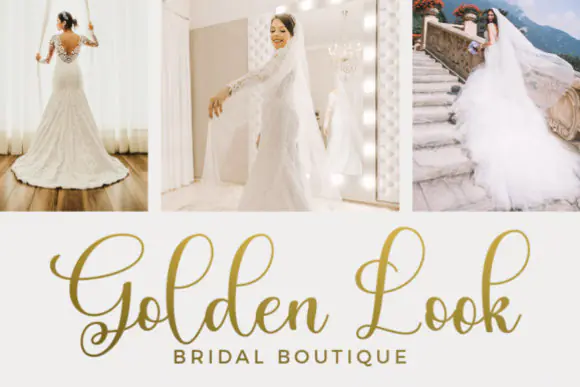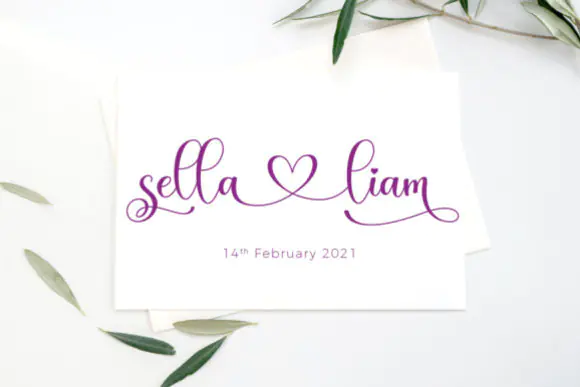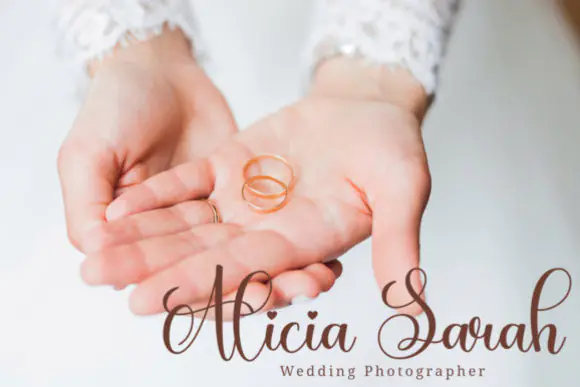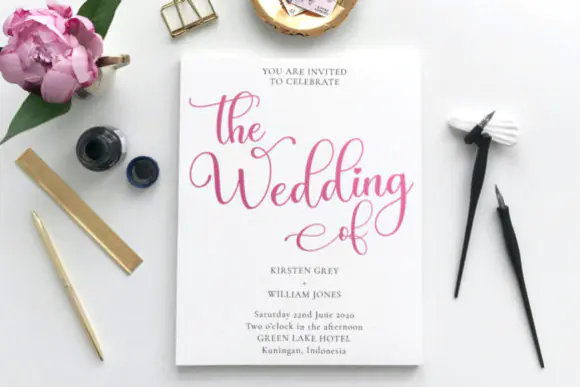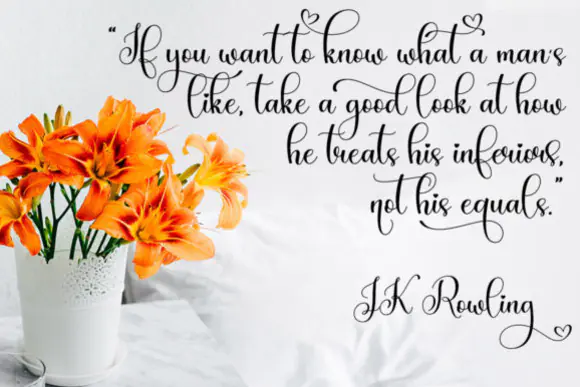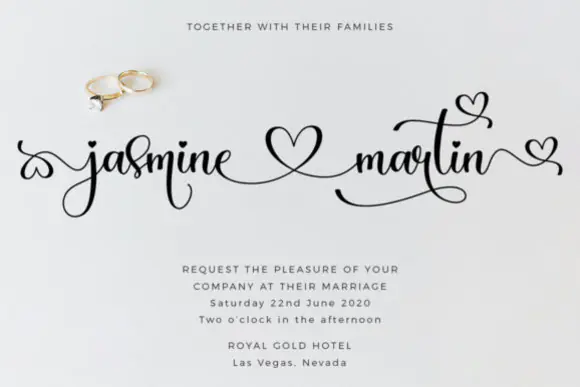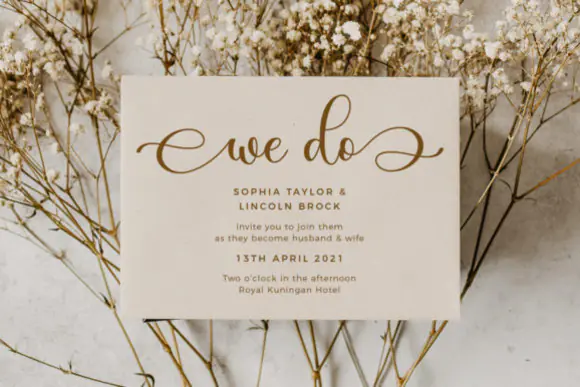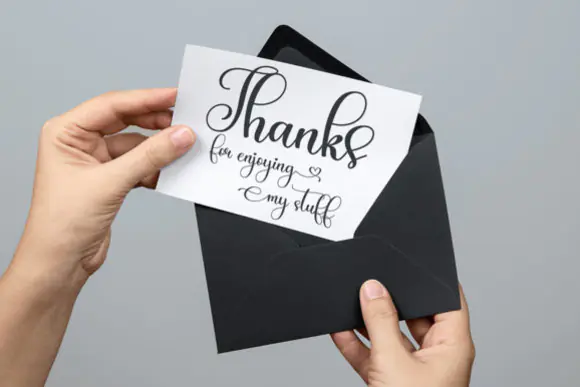
Maddison Romantic Calligraphy Font – Sweet Elegant Script Typeface with Swashes & Glyphs for Wedding Invitations, Logos, Branding, Greeting Cards, Quotes, Packaging & Feminine Designs
Add a romantic, graceful, and stylish calligraphy touch to your creative projects with Maddison Font, a sweet script typeface designed with elegant characters that beautifully dance along the baseline. Its flowing calligraphy style gives your text a soft and expressive look, making it perfect for designs that need a romantic, feminine, and high-end handwritten feel.
This font is ideal for wedding invitations, save-the-date cards, greeting cards, love quotes, logos, branding, boutique designs, product packaging, labels, stickers, social media graphics, printable wall art, fashion designs, and elegant promotional materials. Its casual yet refined appearance makes it flexible enough for both professional branding and personal creative projects.
Maddison Font is also PUA encoded, allowing easy access to glyphs and swashes so you can create more decorative, customized, and premium-looking typography designs. Whether you are designing wedding stationery, romantic branding, luxury packaging, or beautiful quote artwork, this font helps your project feel polished, charming, and memorable.
Wedding invitations, save-the-date cards, bridal stationery, greeting cards, romantic quotes, feminine logos, boutique branding, product packaging, labels, stickers, social media posts, printable wall art, fashion designs, signature-style text, and elegant marketing materials.
Key Features
• Romantic and sweet calligraphy typeface
• Elegant characters with dancing baseline style
• Casual yet graceful handwritten appearance
• Includes accessible glyphs and swashes
• PUA encoded for easy special character use
• Perfect for wedding, branding, and feminine designs
• Great for both digital and printable creative projects